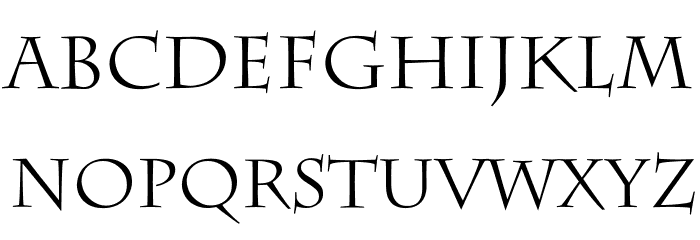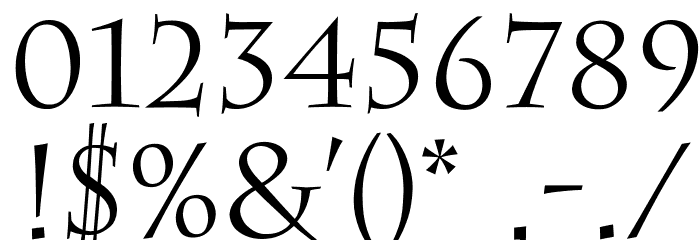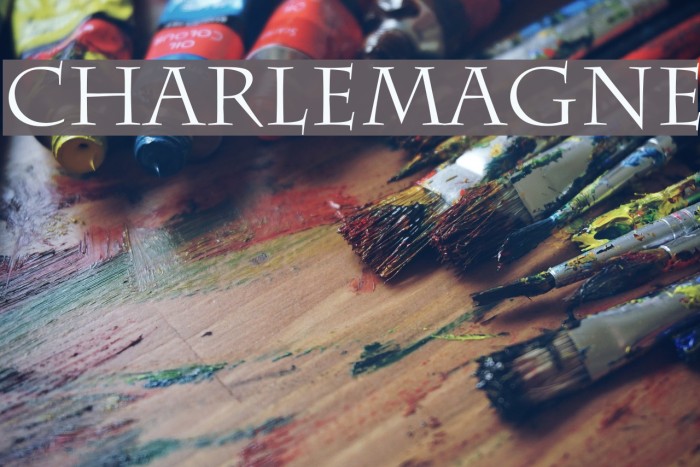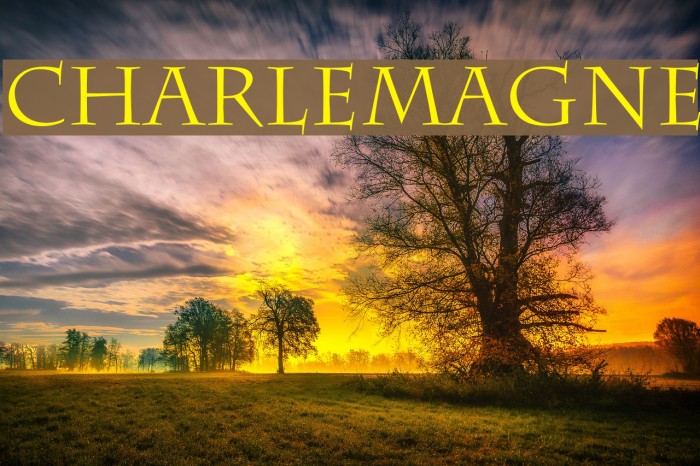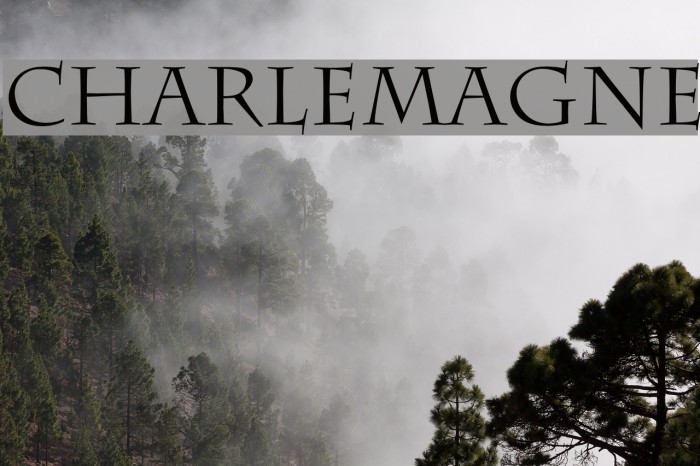
Charlemagne Font
This font features a classic and elegant serif design, reminiscent of traditional calligraphy with a modern twist. The characters are well-defined with a high contrast between thick and thin strokes, giving it a sophisticated appearance. The serifs are sharp and pronounced, adding a touch of formality and grace. The uppercase letters are particularly striking, with a regal and authoritative presence. The numerals and special characters maintain the same level of detail and elegance, ensuring consistency throughout the typeface.
A classic serif font with high contrast and elegant, sharp serifs.
- Proposed Projects: Ideal for formal invitations, historical publications, luxury branding, and editorial design.
- Category: Serif
- Overall Style: Classic
- Use Case: Headlines, Logos, Editorial design